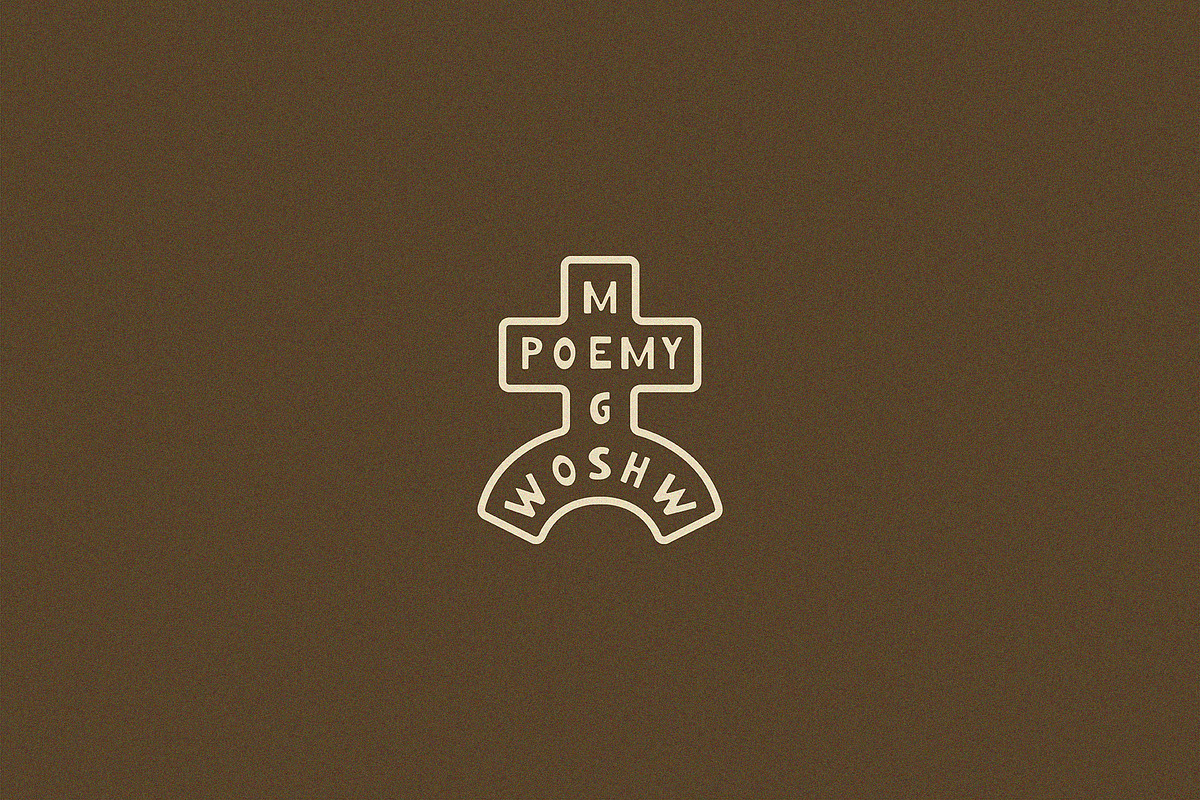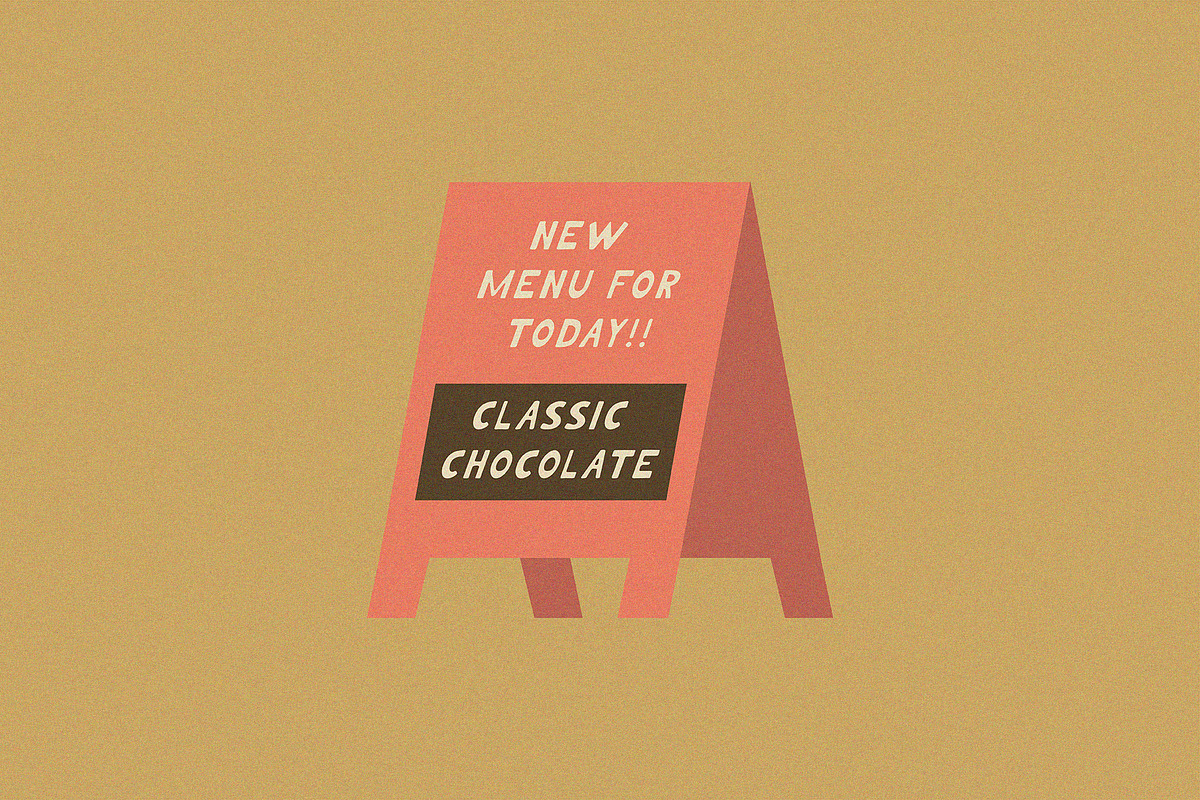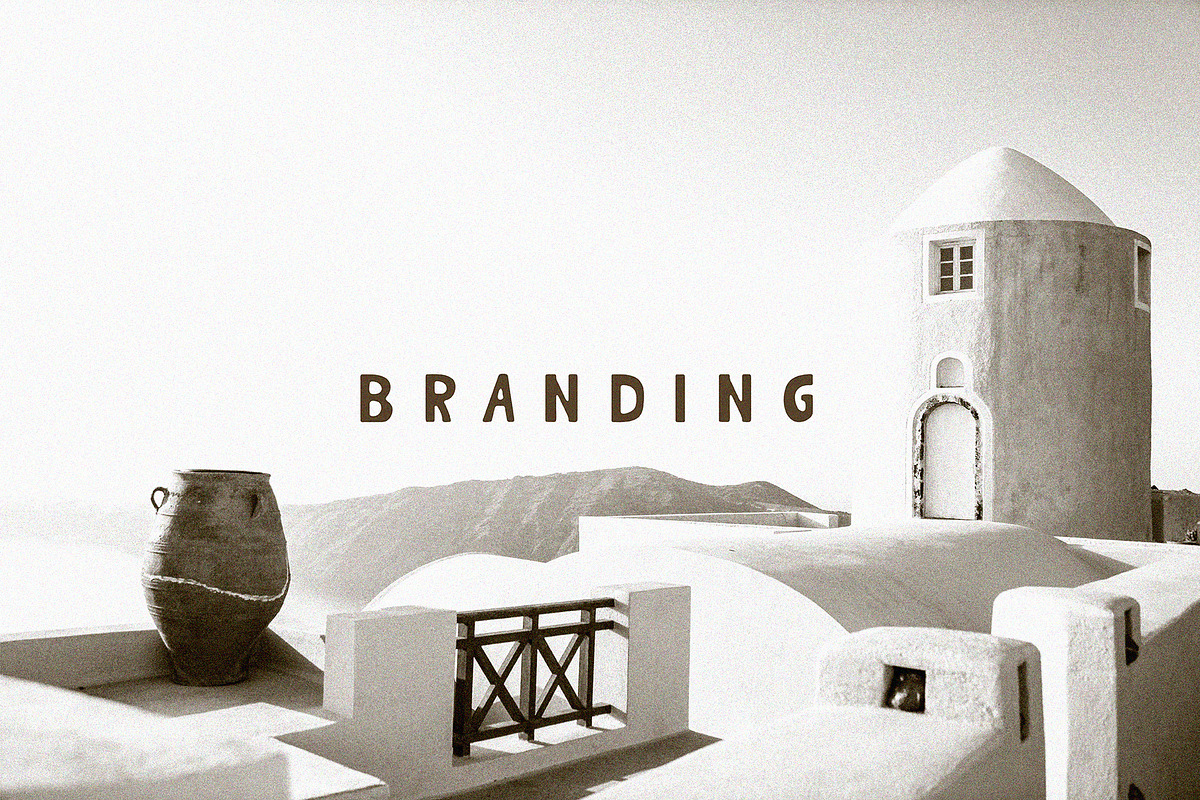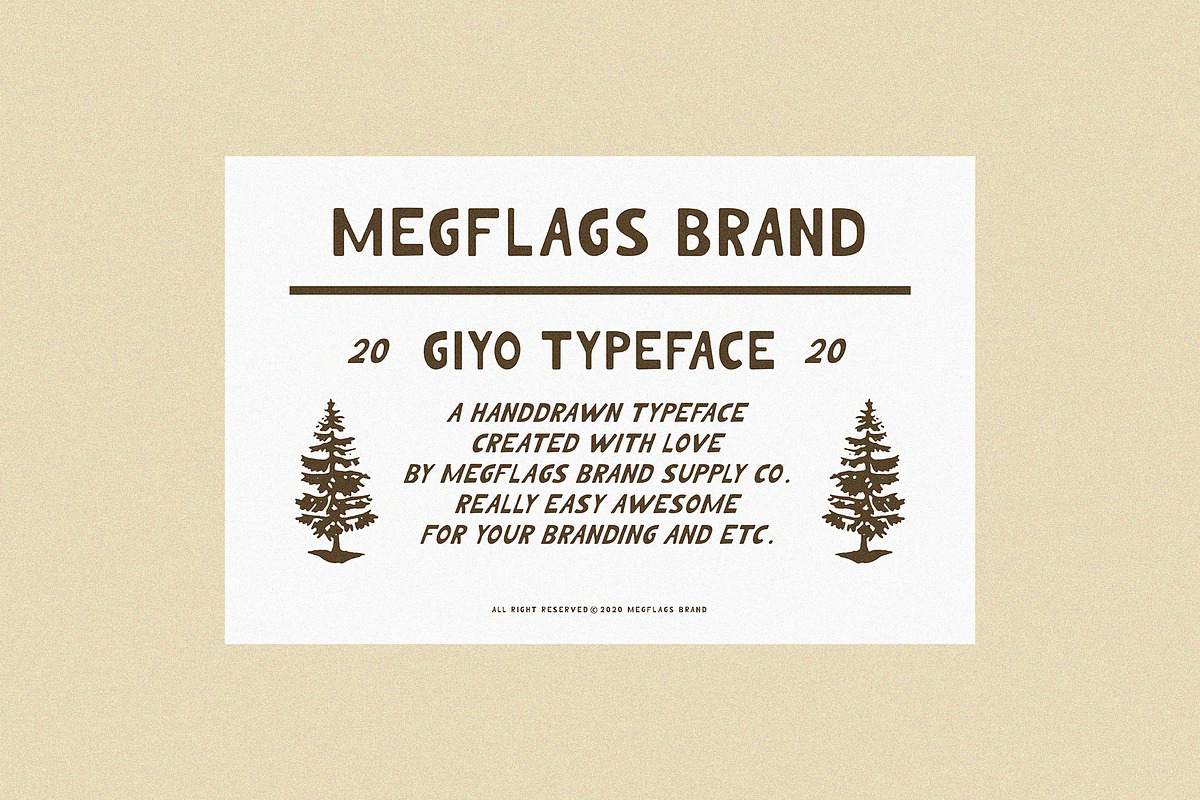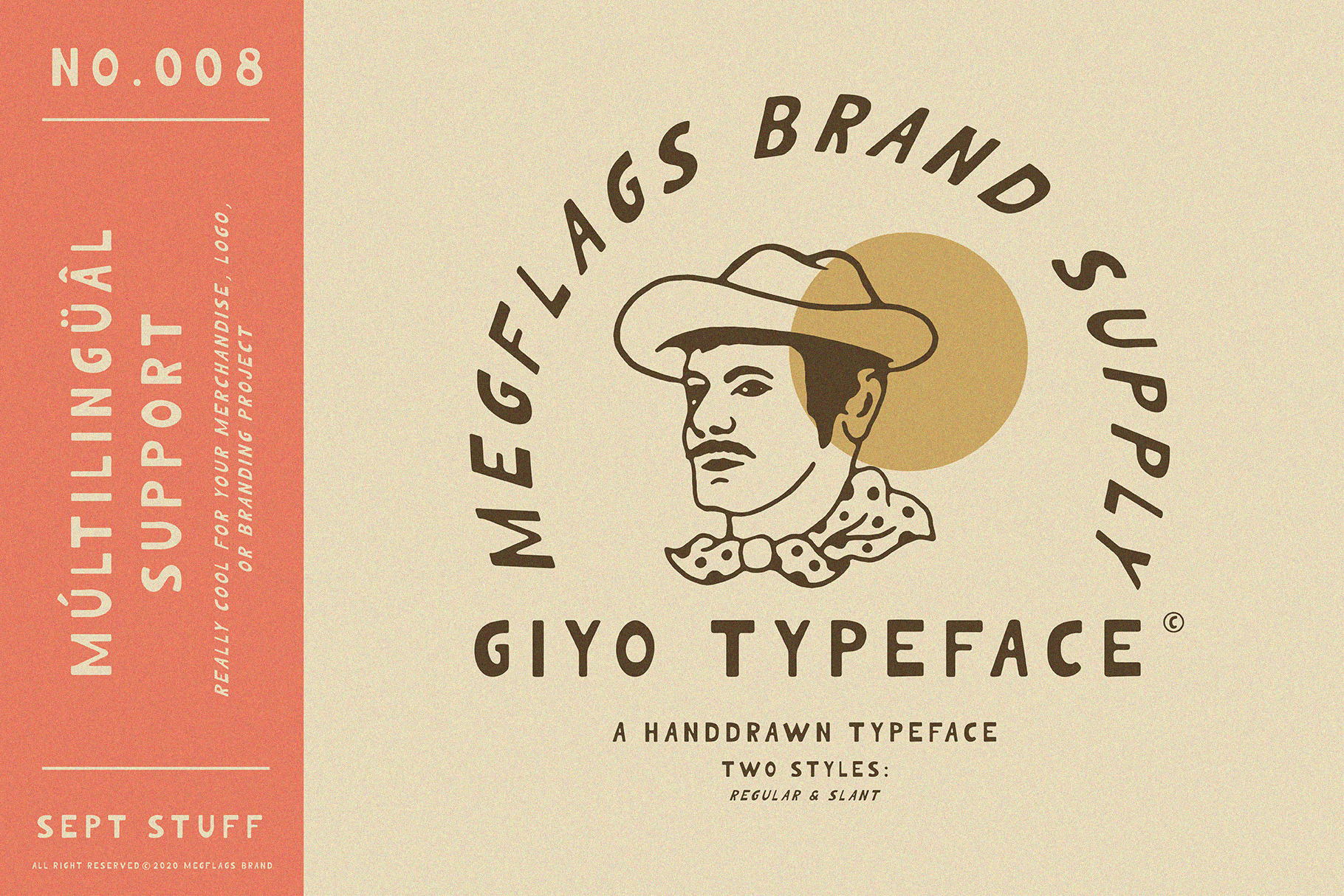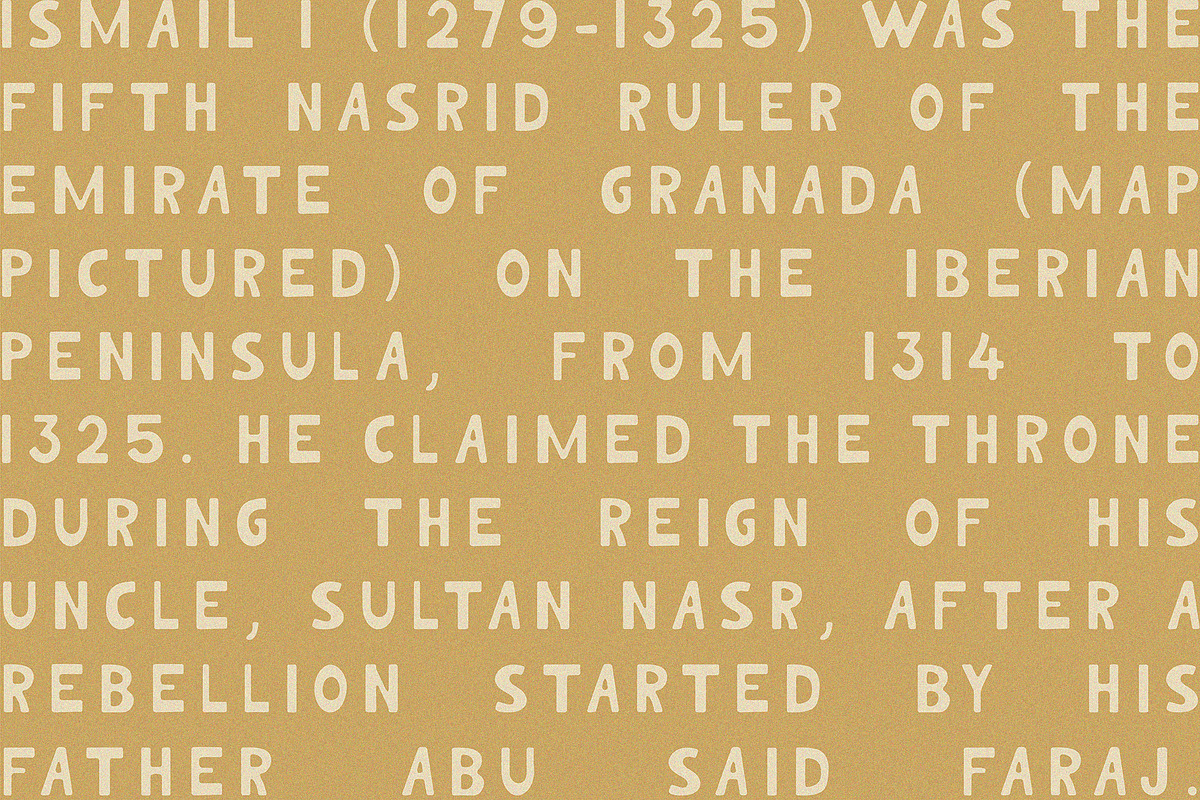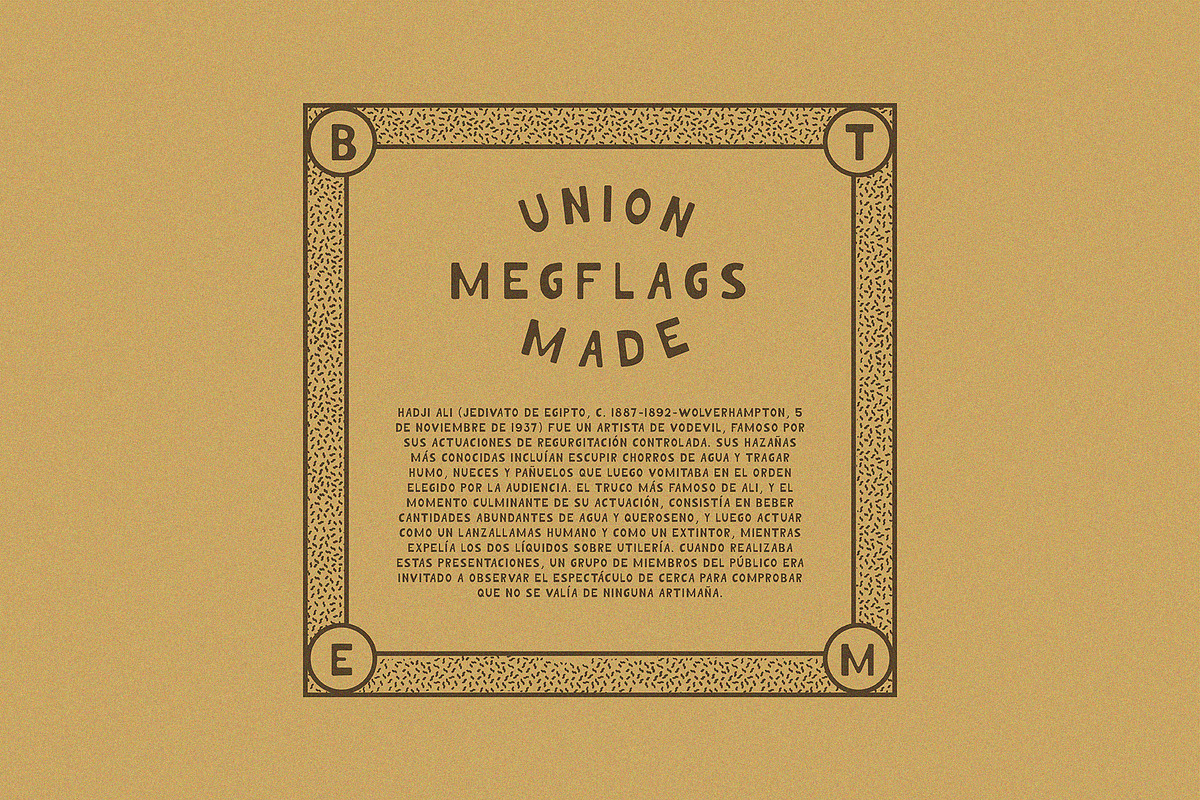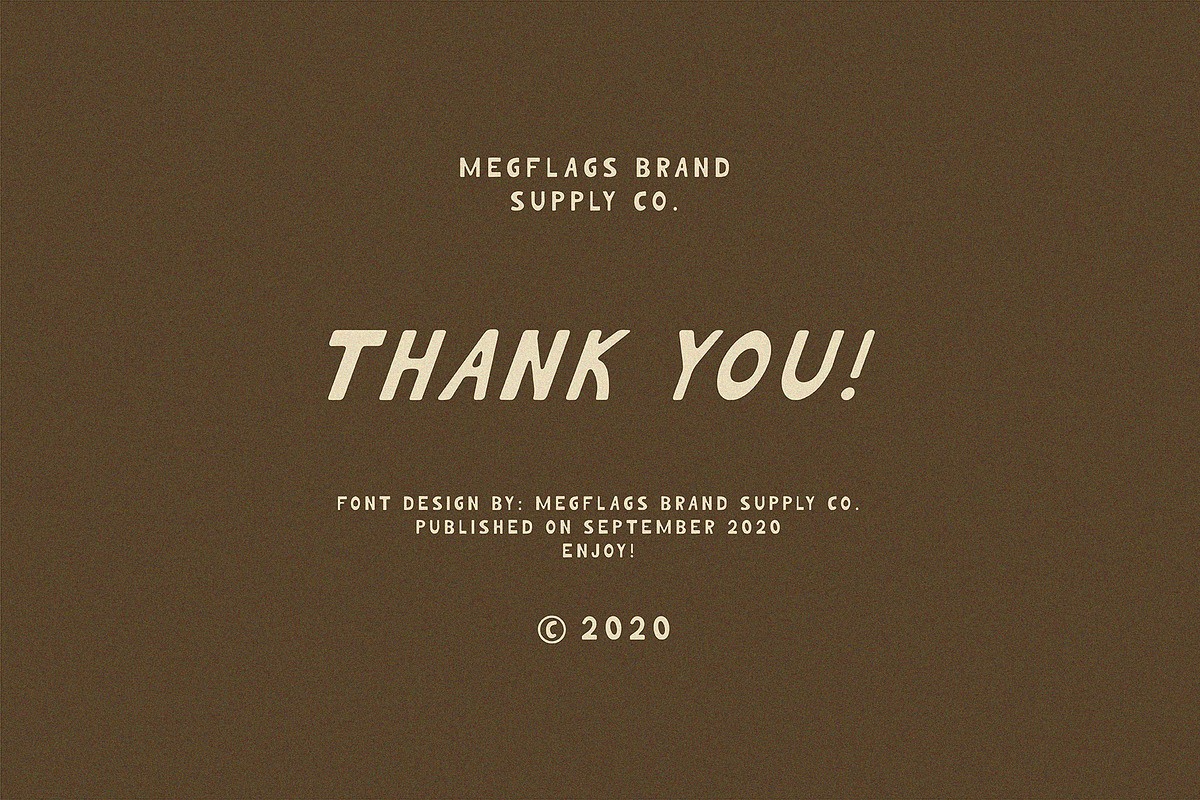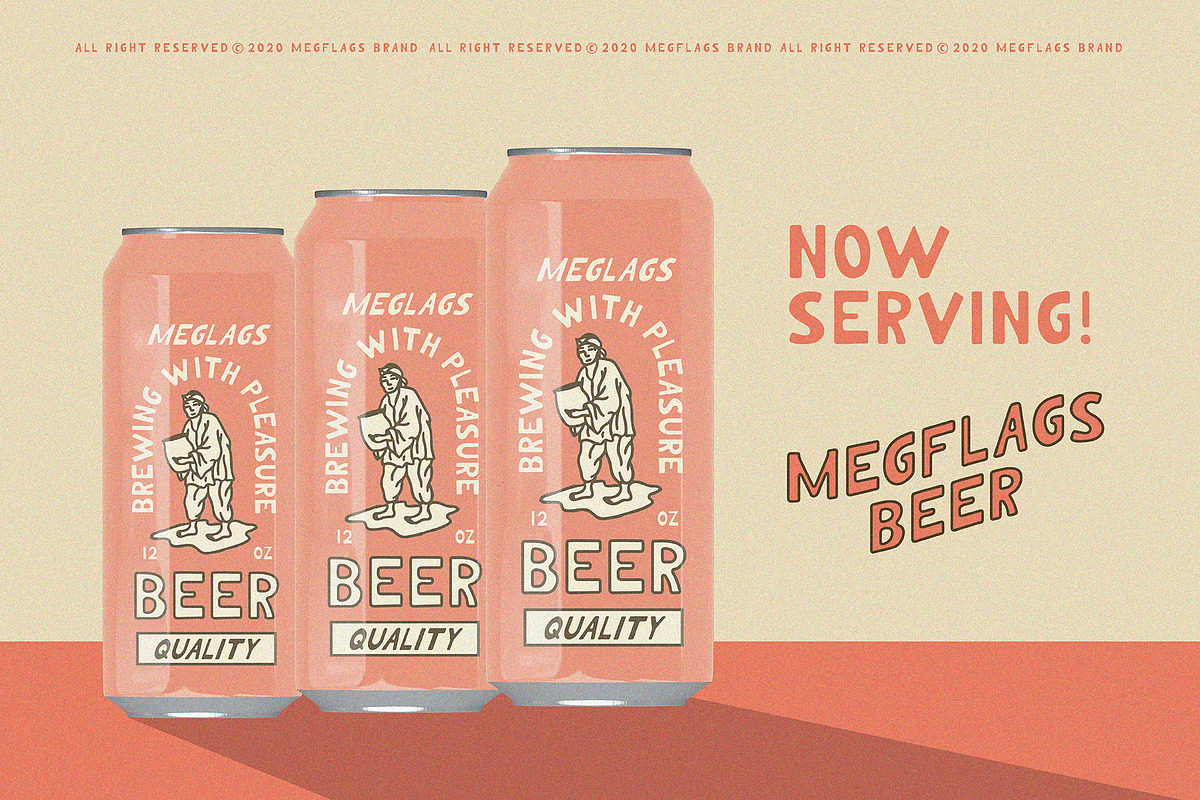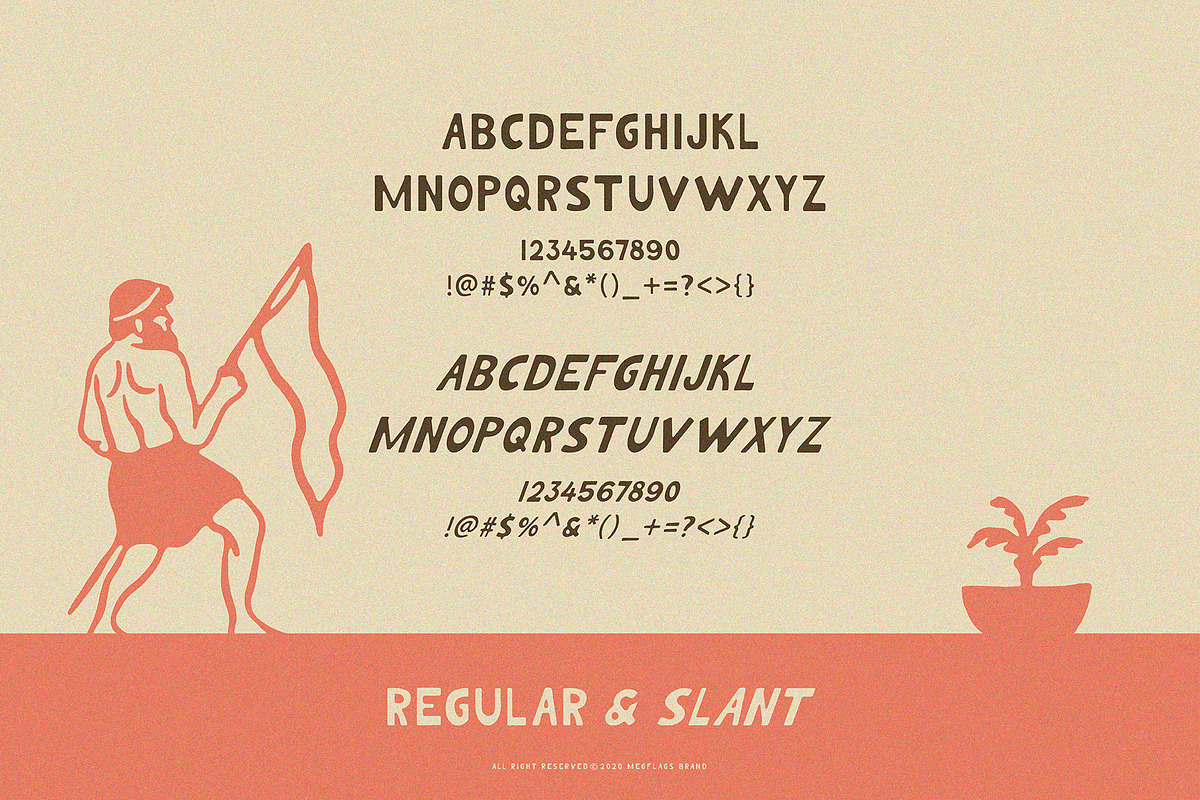
Giyo Typeface
GIYO TYPEFACE A handdrawn typeface comes with two styles, regular and slant. Really cool for your branding project! Multilingual support. Enjoy!! Thanks!!